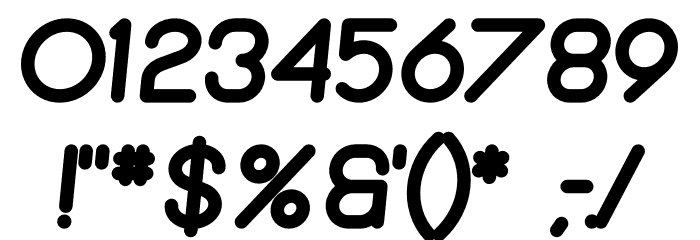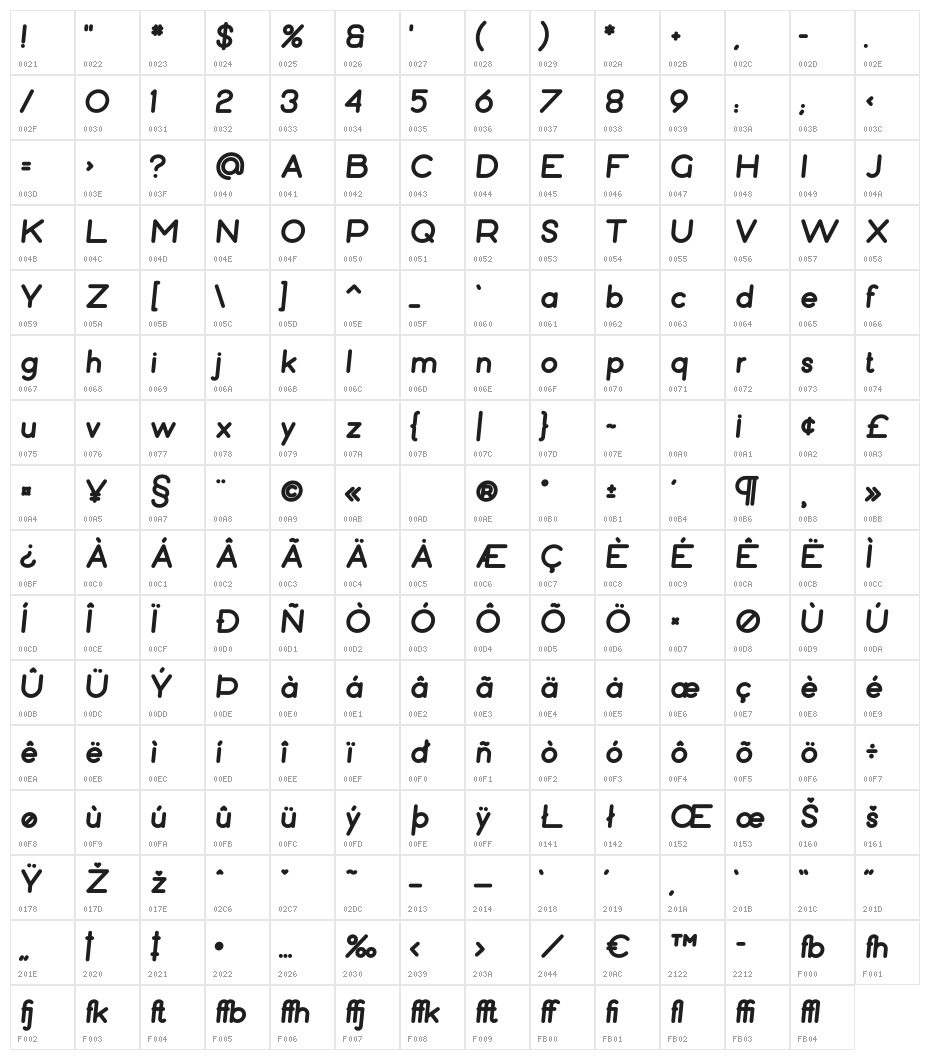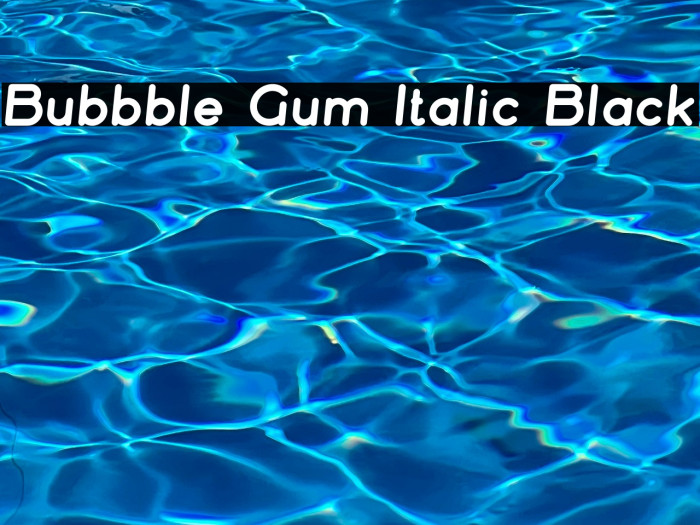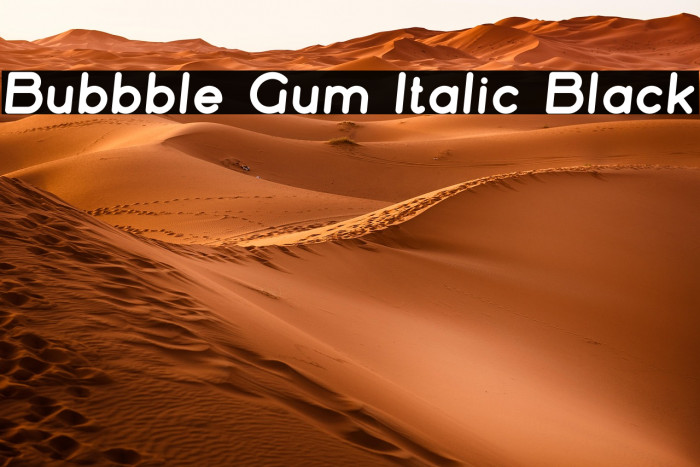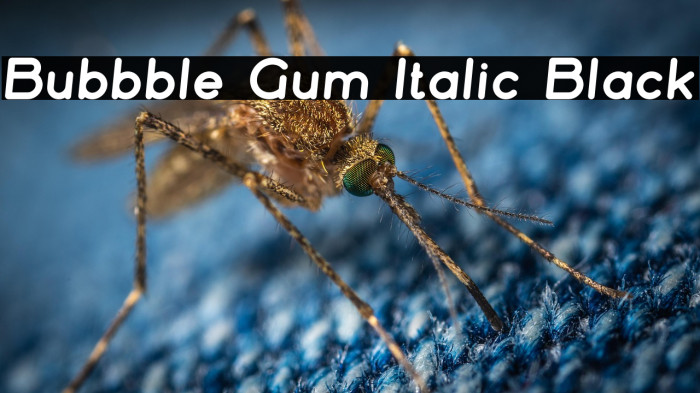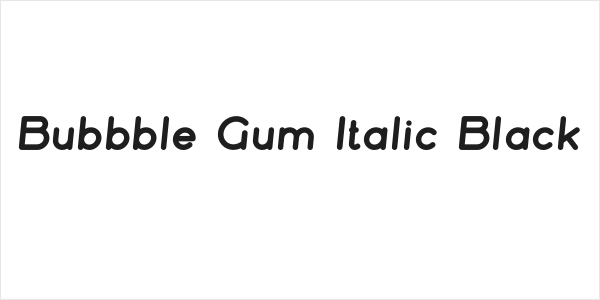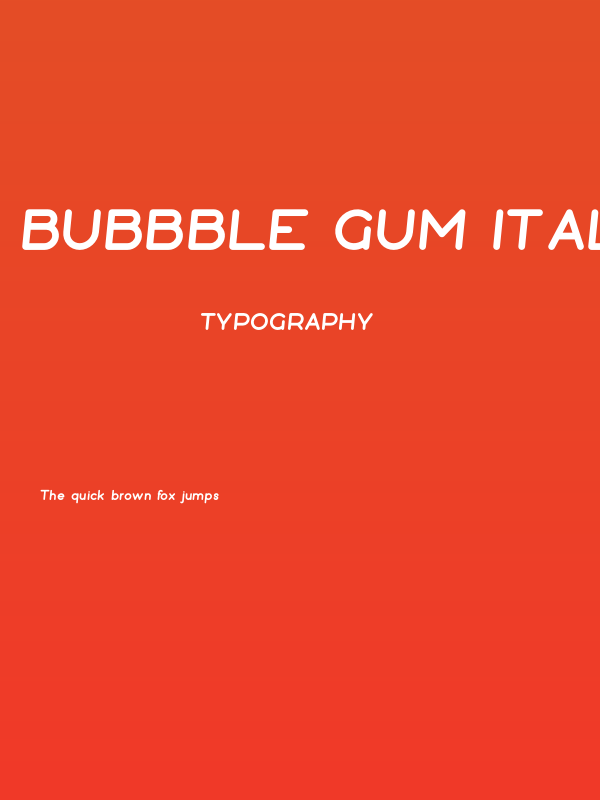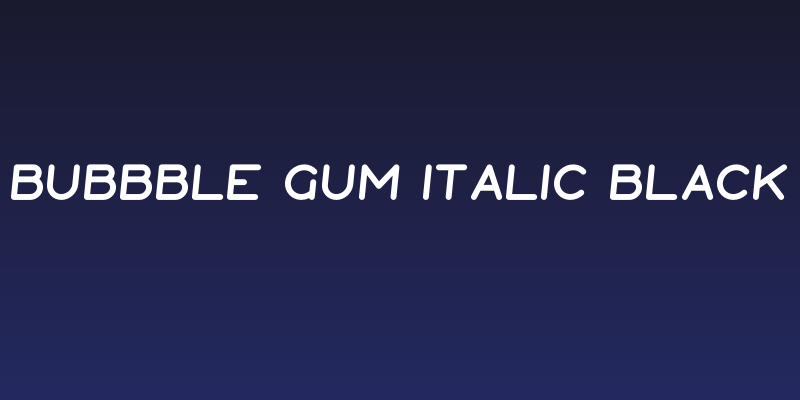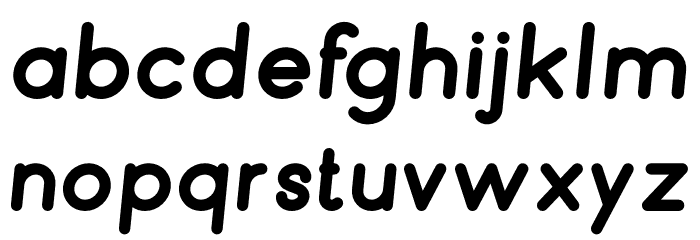
Bubbble Gum Italic Black Font
Bubbble Gum Italic Black Description
This playful and bold font features rounded edges and a smooth, flowing style that gives it a whimsical and friendly appearance. The characters are slightly italicized, adding a dynamic and energetic feel. The thick strokes and consistent weight throughout the letters make it highly legible, even at smaller sizes. Its bubbly and informal nature makes it perfect for projects that require a fun and approachable look. The font includes a full set of uppercase and lowercase letters, numbers, and a variety of special characters, ensuring versatility in design applications.
| Proposed Projects | Ideal for children's books, playful branding, party invitations, and casual social media graphics. |